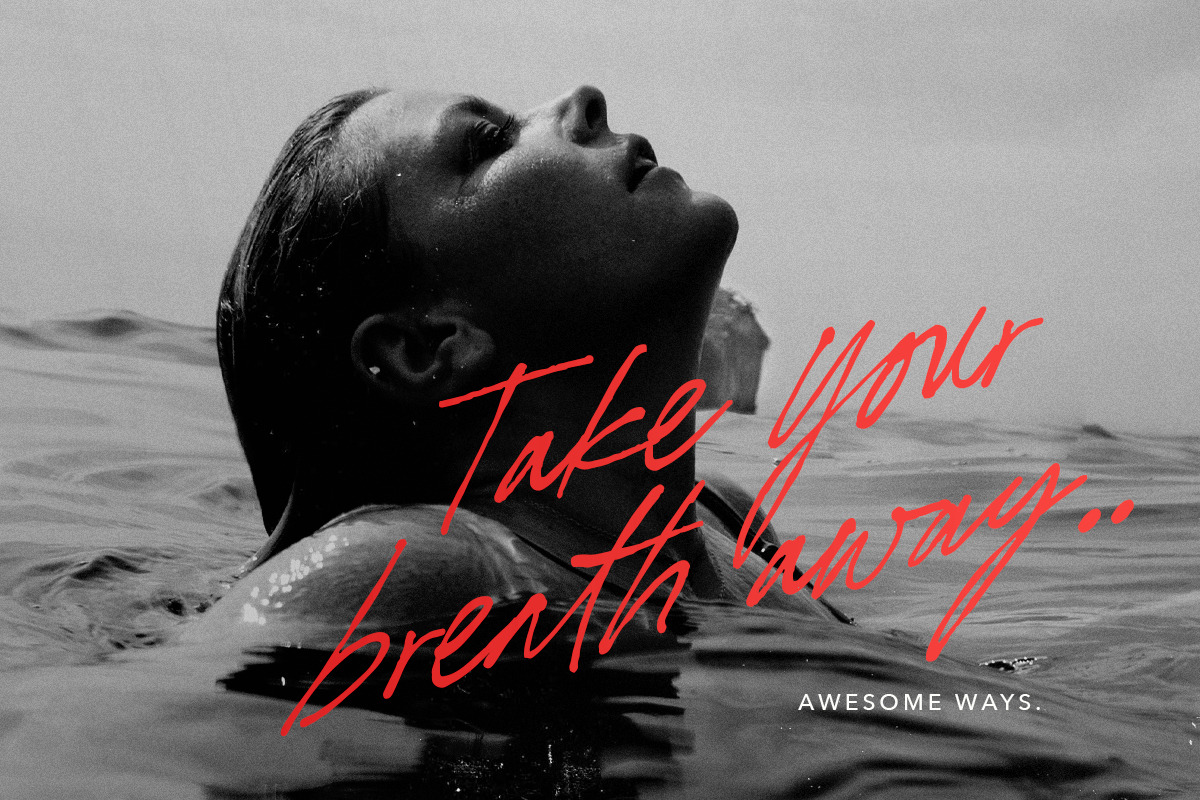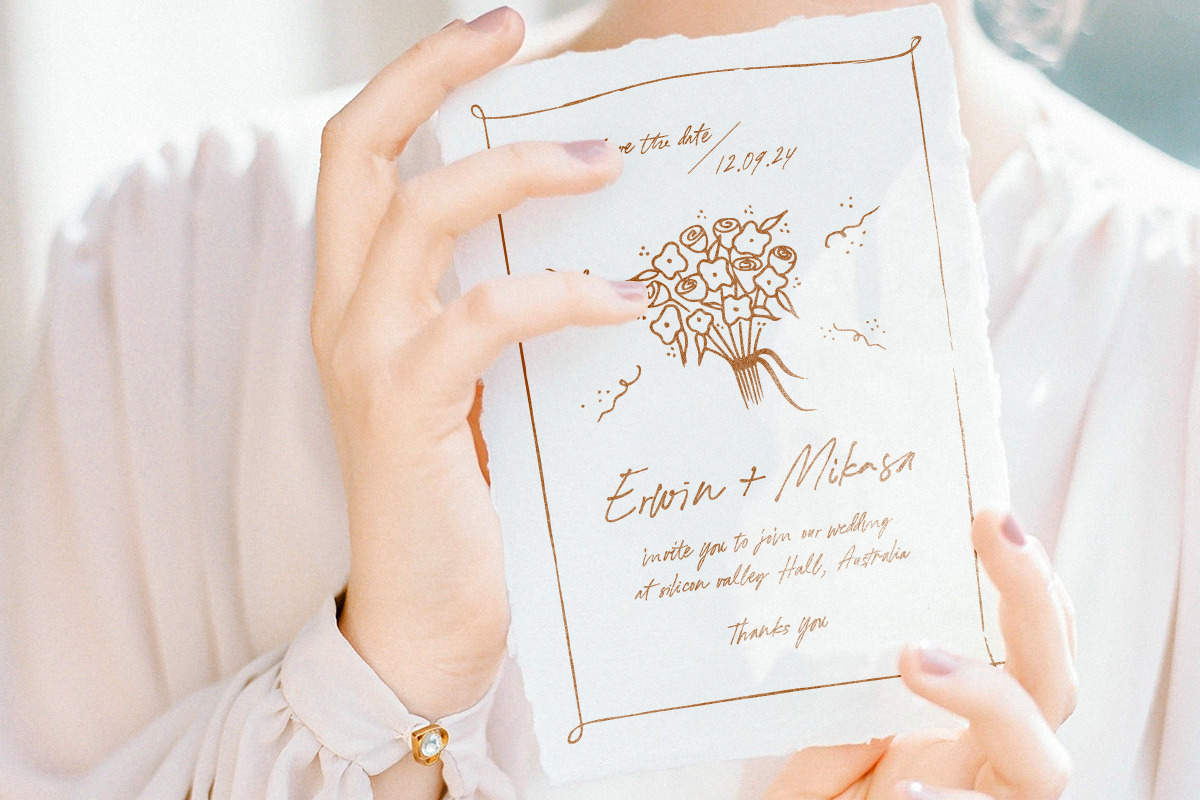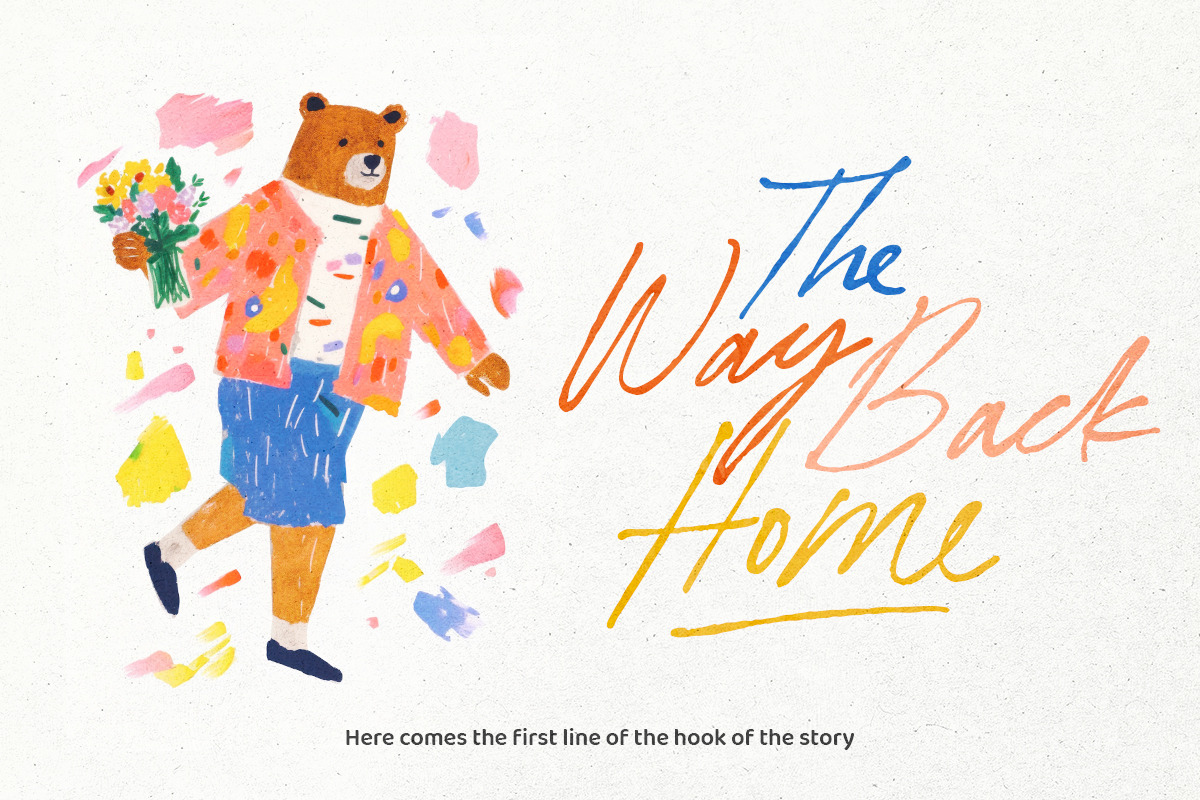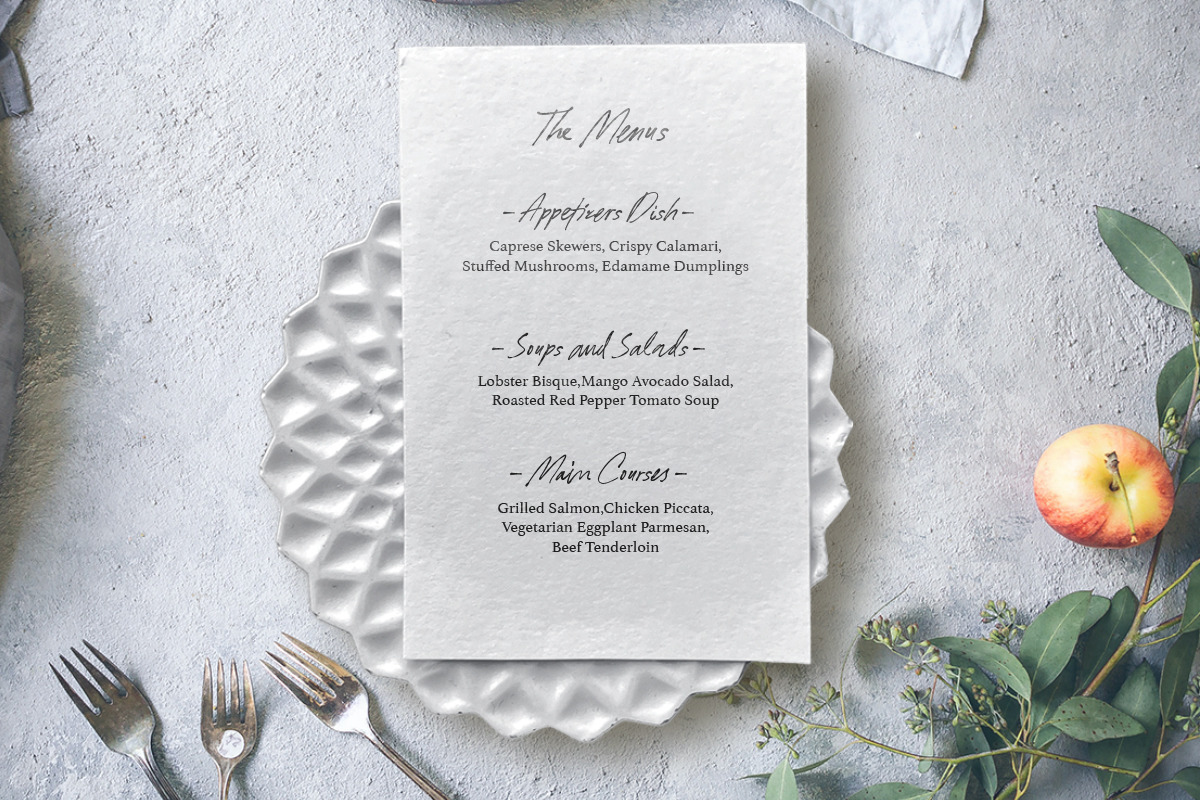
Awesome Ways - Ligature Script
Introducing, Awesome Ways, an aesthetic script with a lot of ligatures!
Awesome Ways is a handwritten script with bunch of ligatures that will make your project looks more natural and made by hand. You can use this font for any purposes such as label, logo, handwritten quotes, wedding invitations and more. This font also support multi language!